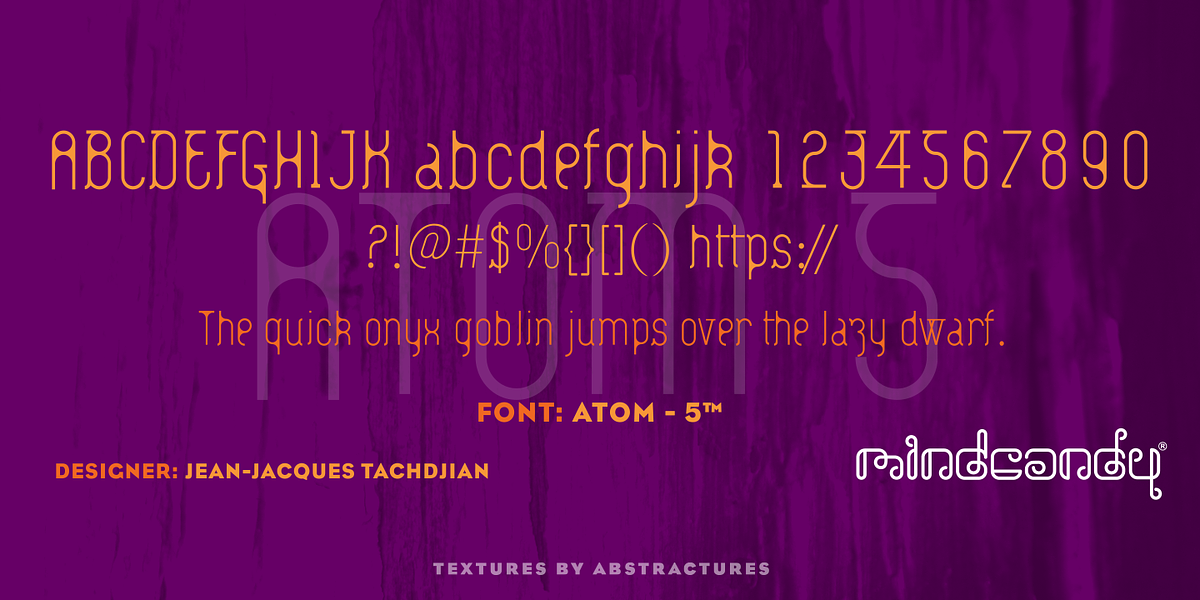
Atom 5™
Alex™ 5 is a geometric sans-serif font characterized by its thinness and condensed width. It features unique square serifs on some characters, setting it apart from traditional geometric sans-serifs. Designed by Jean-Jacques Tachdjian, the font aims for a post-modern aesthetic that is sure to capture attention in display applications like headlines.